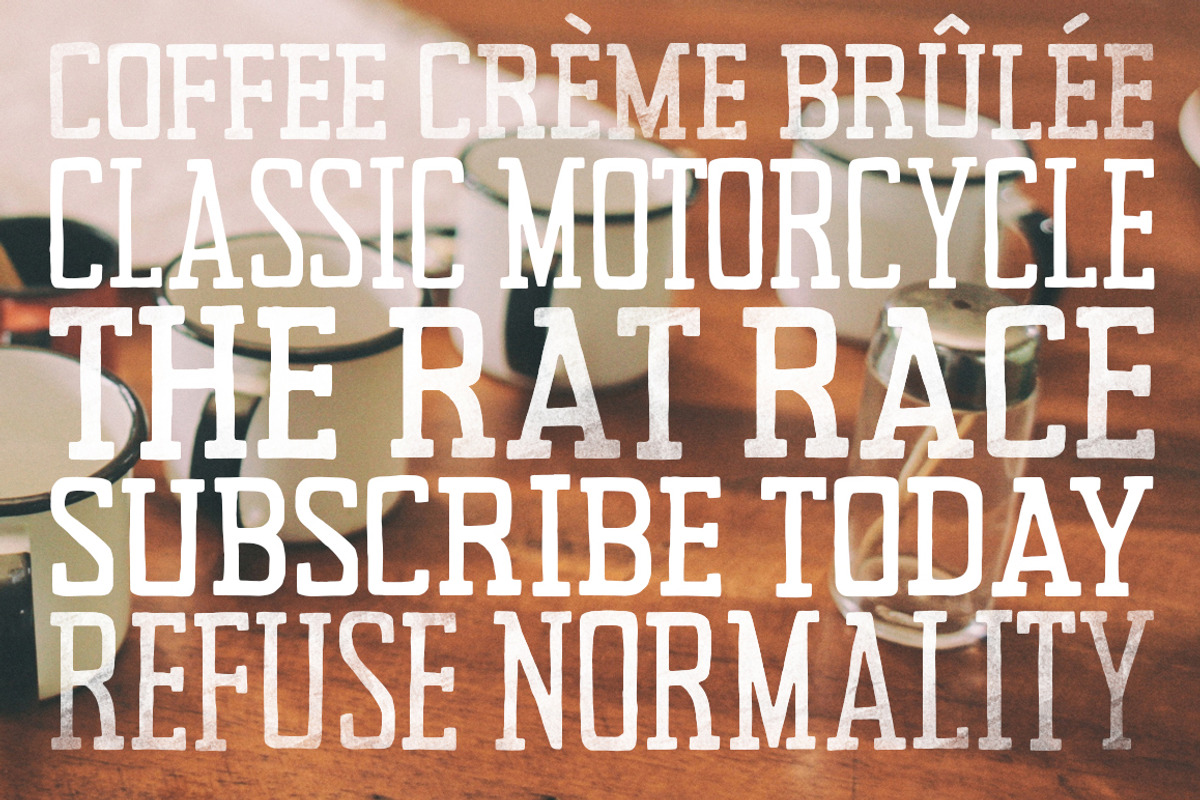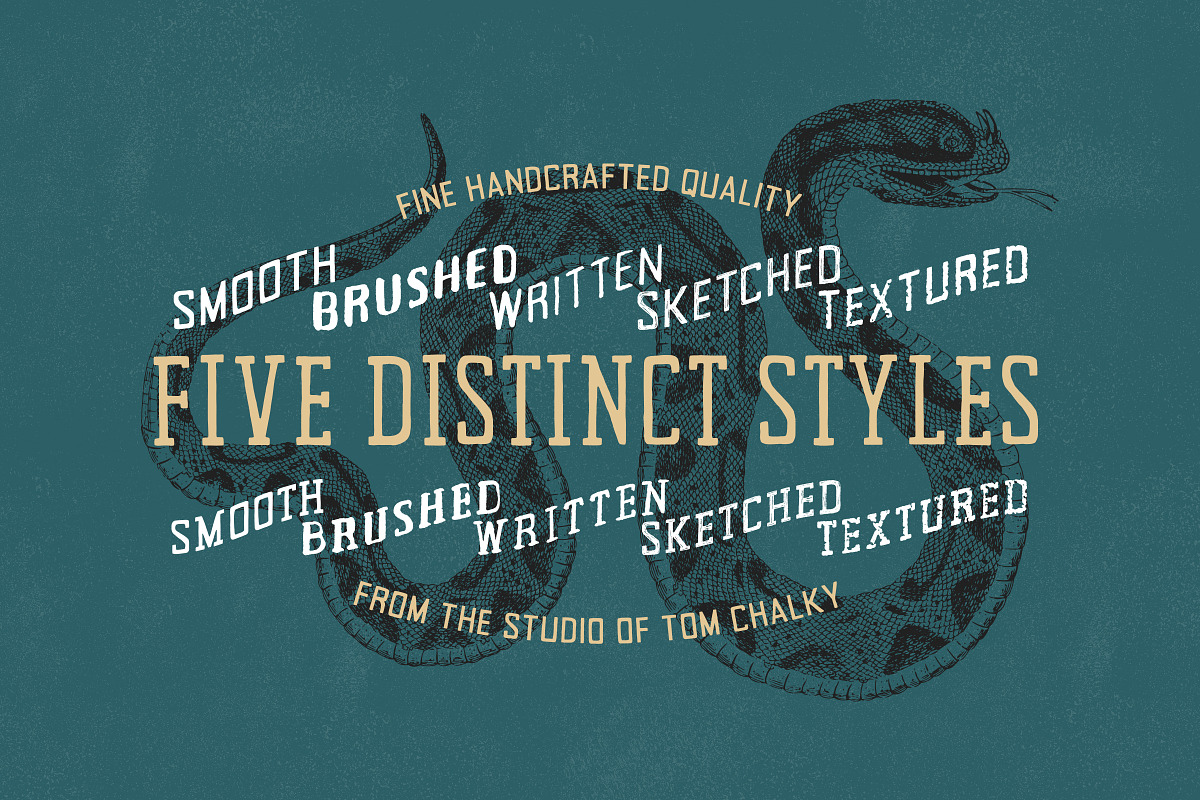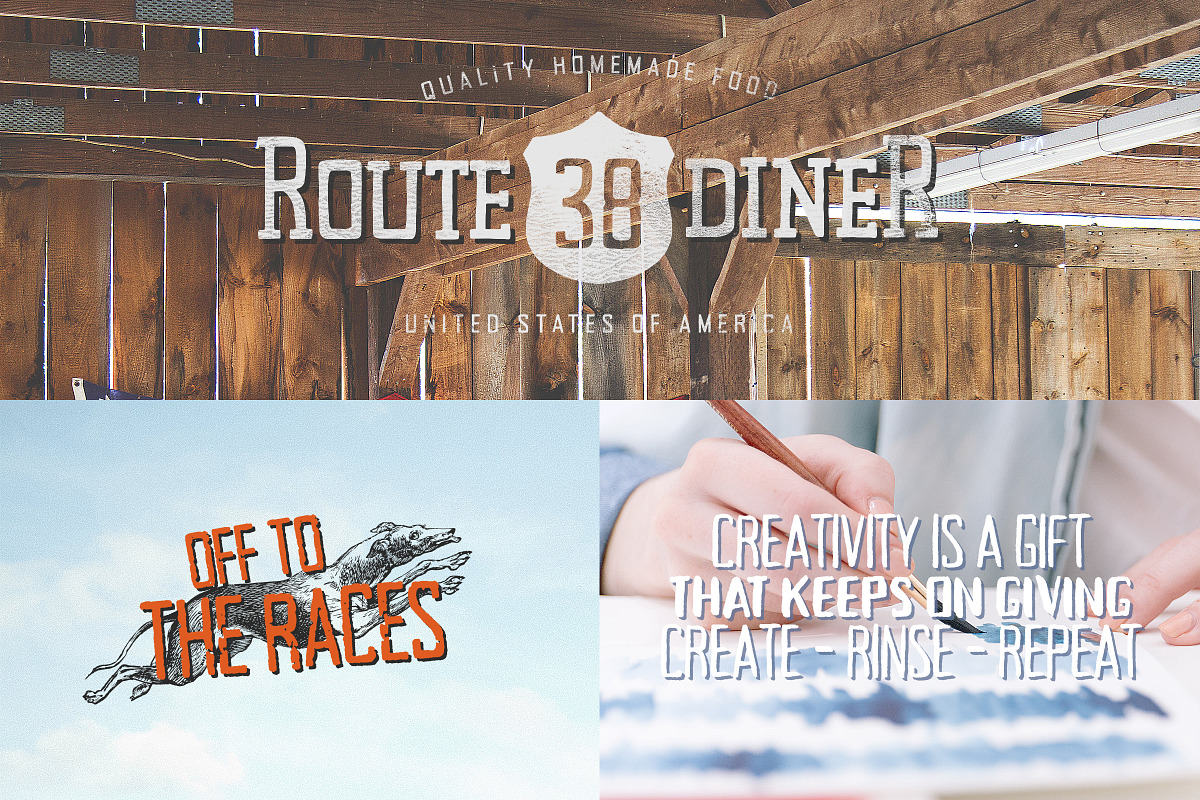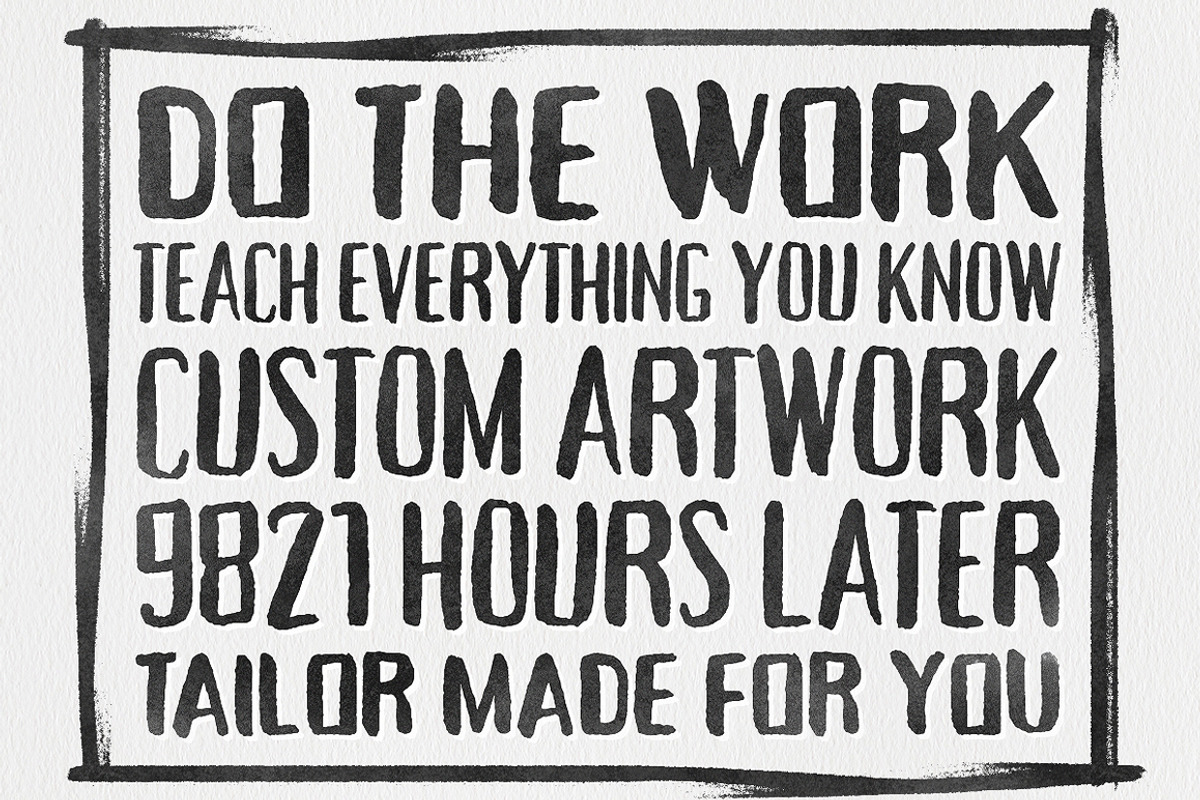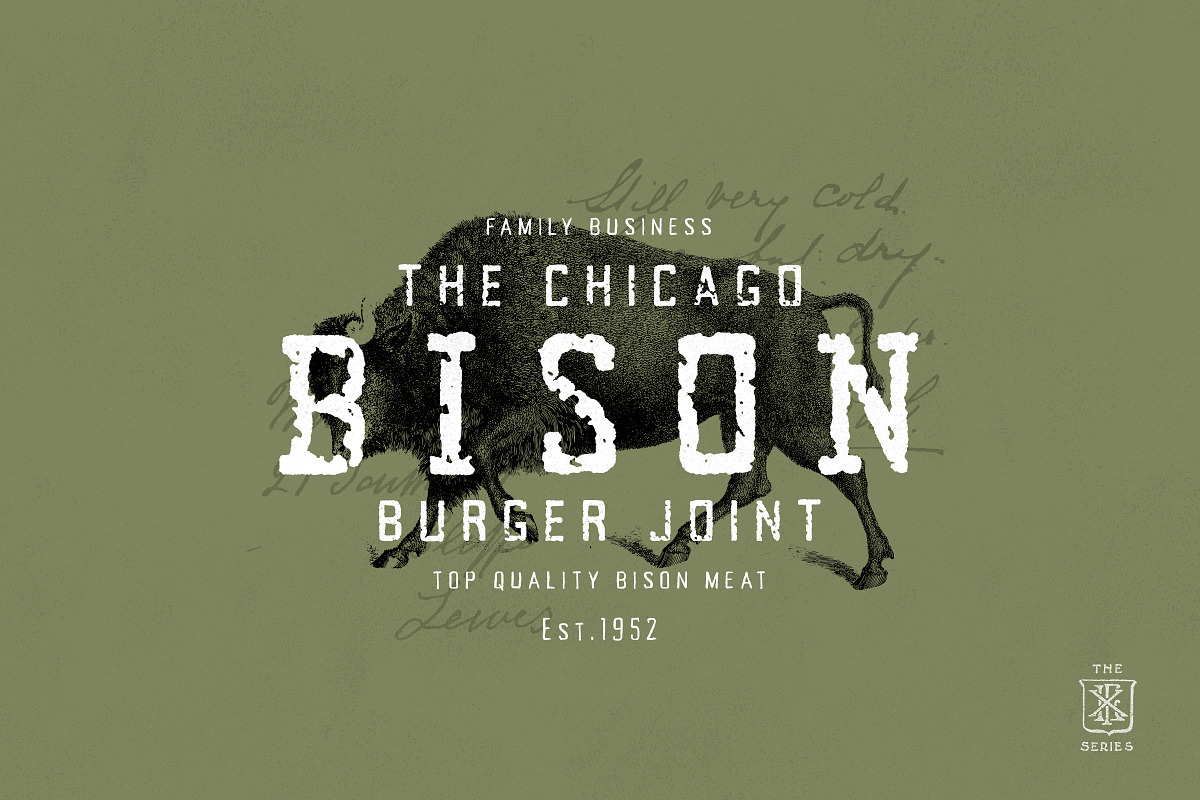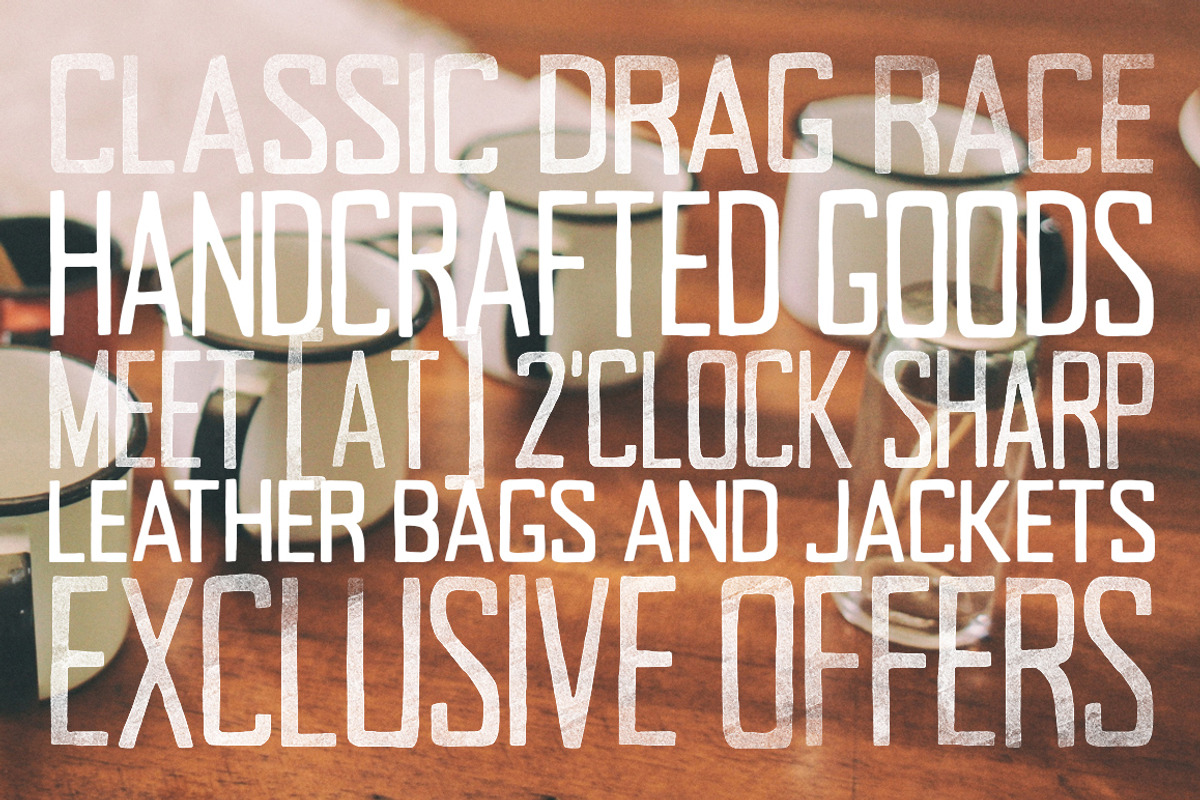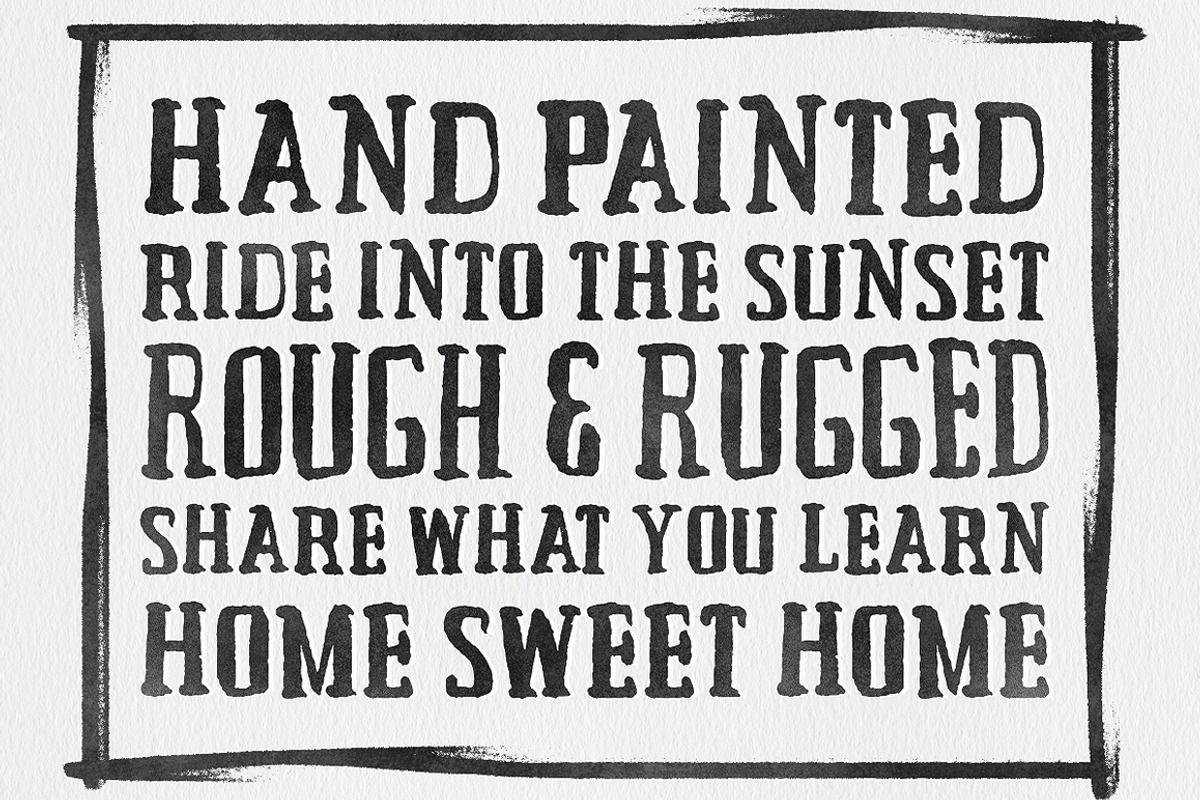
Tallow Font Collection (10 Fonts!)
Tallow Font Collection (10 Fonts!) by Tom Chalky is a font selected for branding, posters, packaging, typography.
- And each of the styles included are available as sans-serif and serif fonts.
- The fonts in this package are multilingual!
- This uppercase (and small caps) family consists of 5 different styles; brush, pen, sketch, rough and regular.
Tallow Font Collection (10 Fonts!) by Tom Chalky fits naturally into Branding, posters, packaging, typography.